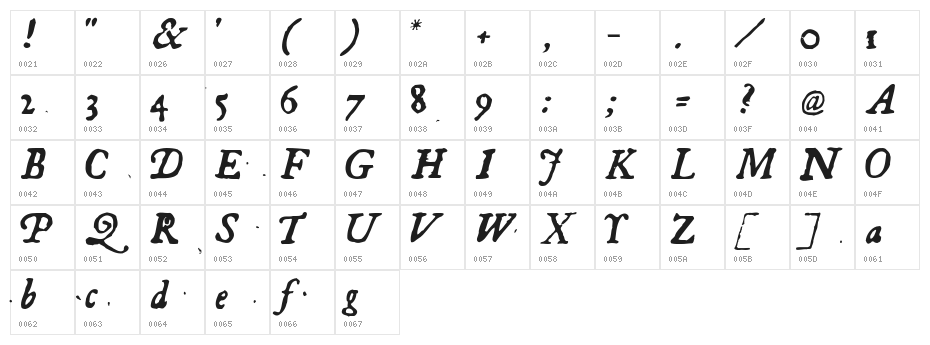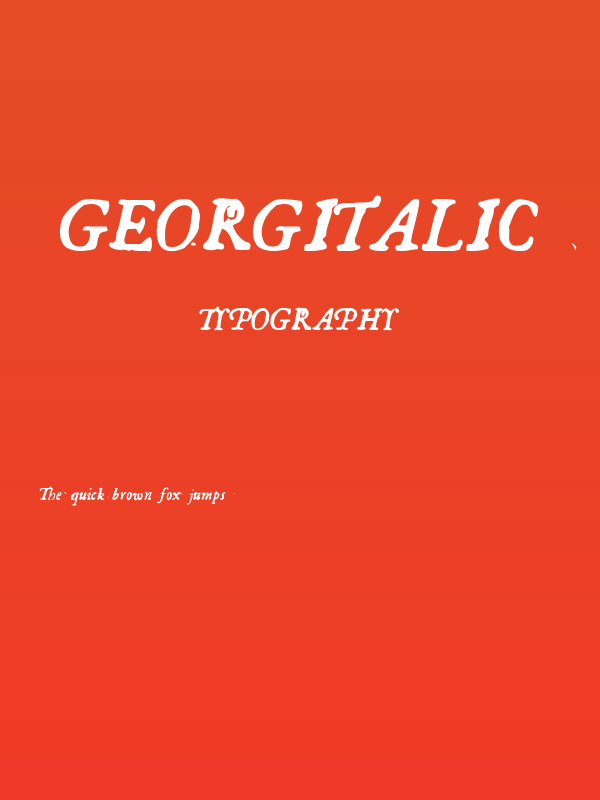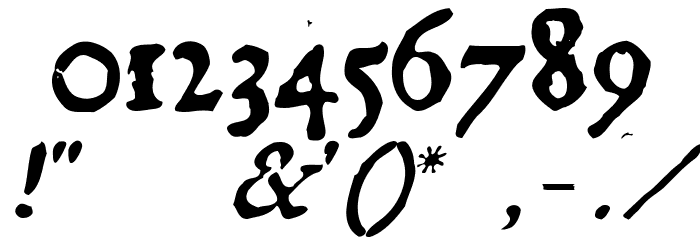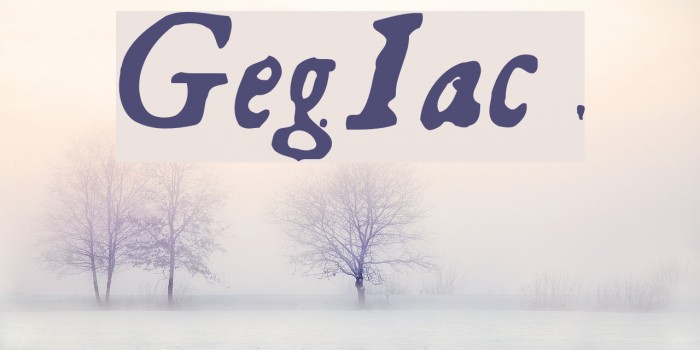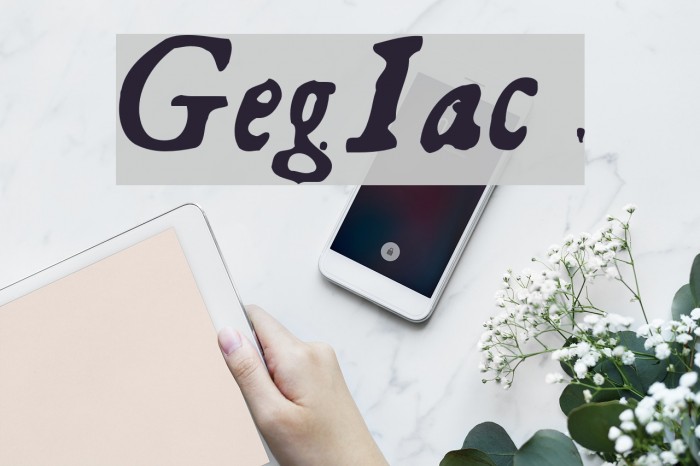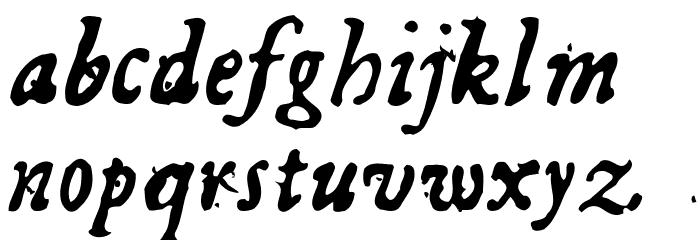
GeorgItalic Font
GeorgItalic Description
This font features a classic and elegant italic style with a distinct calligraphic influence. The characters exhibit a fluid and dynamic motion, with each letter slightly slanted to the right, enhancing its graceful appearance. The strokes are varied in thickness, providing a medium contrast that adds depth and sophistication. The uppercase letters are bold and prominent, while the lowercase letters maintain a consistent flow, making it suitable for both formal and creative applications. The numerals and special characters are well-integrated, maintaining the overall aesthetic of the font.
| Overall Style | Classic |
| Use Case | Headlines, Logos, Invitations |
| Proposed Projects | Ideal for wedding invitations, formal event programs, elegant branding, and artistic book covers. |